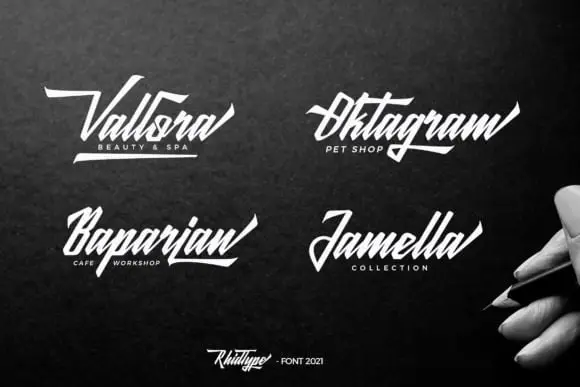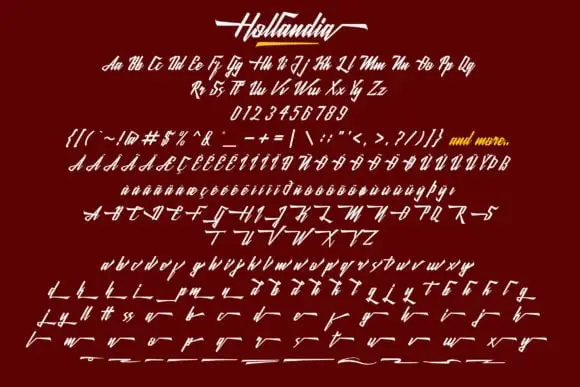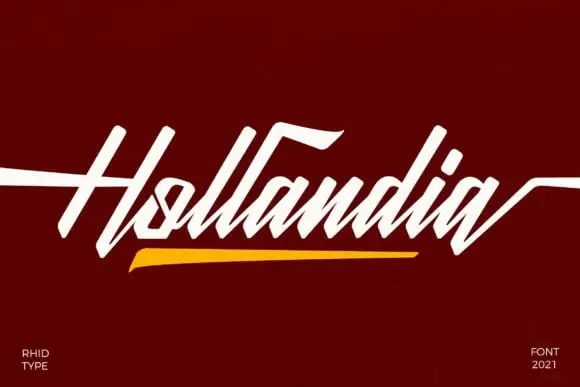
Rhidtype-Hollandia Font
The Rhidtype-Hollandia Font is a beautifully crafted typeface that combines elegance with modernity. This font features a unique blend of classic and contemporary styles, making it perfect for a variety of design projects.
• Stylish and versatile design
• Multiple weights for diverse applications
• Clean lines and legible characters
This font is ideal for branding, logos, web design, print materials, and user interfaces. Its distinctive style can elevate any project, making it a valuable addition to your design toolkit.